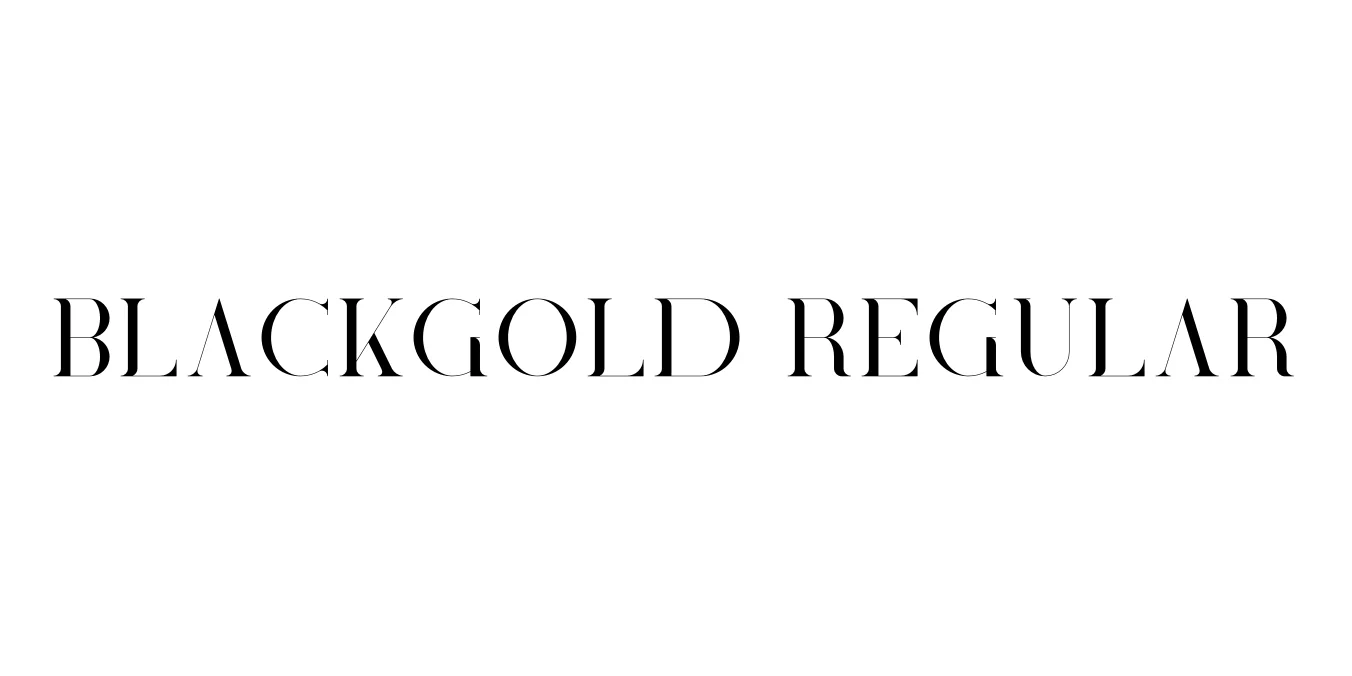
BlackGold Regular
Designed by Letterhend Studio
| Font Name | BlackGold |
| Designer | Letterhend Studio |
BlackGold Regular is a sophisticated and luxury serif typeface designed to evoke a sense of elegance and high fashion. Created by Letterhend Studio, this font features high contrast between thick and thin strokes, a characteristic hallmark of modern serif designs that lean into the "Didone" style. Its refined curves and sharp terminals make it an ideal choice for projects that require a touch of class, professionalism, and a premium feel.
This font is widely utilized in the fashion industry, luxury branding, and editorial layouts. Whether it is used for a high-end magazine masthead or a minimalist logo design, BlackGold Regular provides a timeless aesthetic. It also includes various ligatures and stylistic alternates, allowing designers to create unique typographic compositions that stand out in both print and digital media for maximum visual impact.
BlackGold Regular Best Uses
Perfect for creating high-end fashion and luxury lifestyle brand identities.
Excellent for magazine headers, titles, and stylish layouts.
Adds a sophisticated and romantic touch to invitations and event stationery.
Great for premium product advertisements and social media graphics.